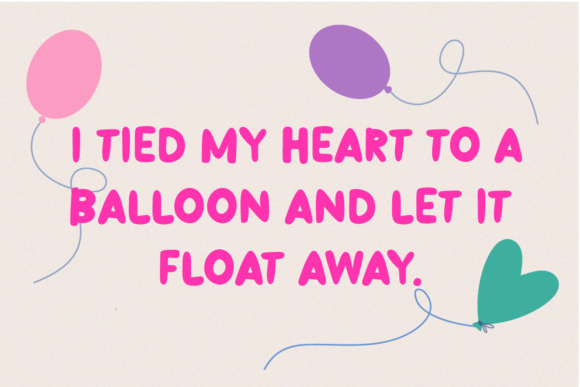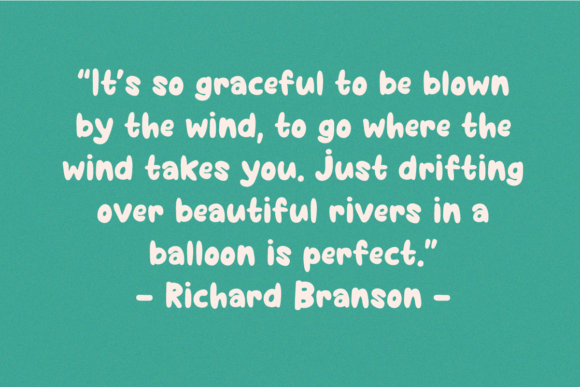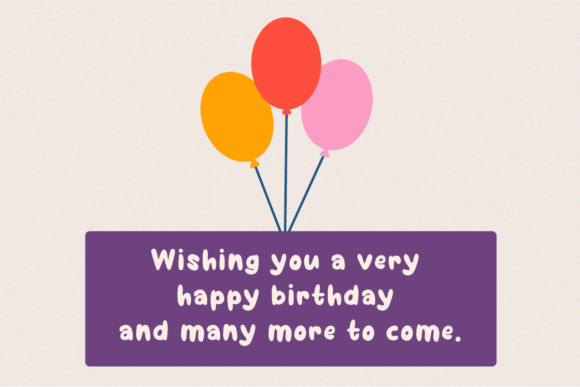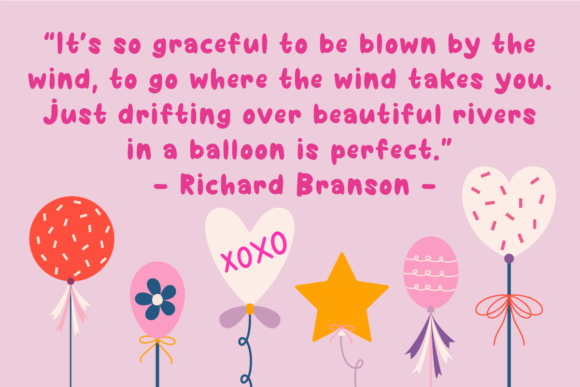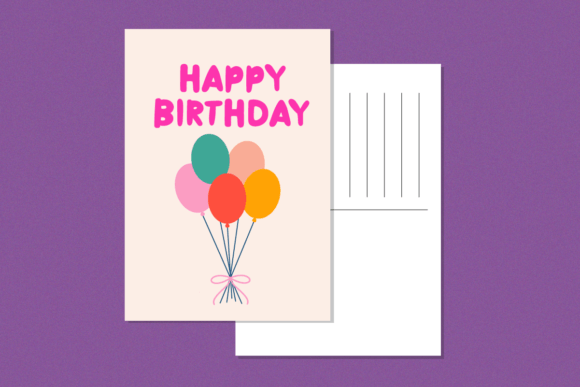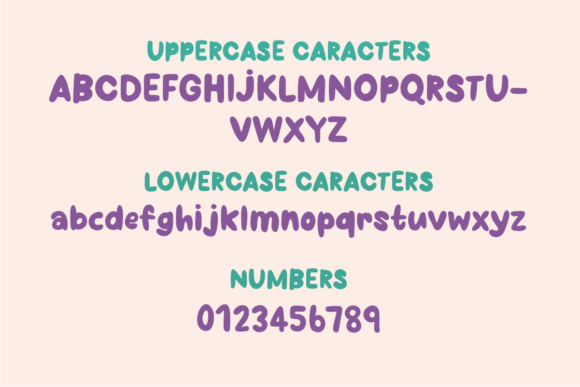
Let Your Creativity Take Flight with the Perfect Font
Remember the excitement of blowing up balloons for your birthday party as a child? The thrill of watching them soar into the air, a colorful spectacle that brought joy to everyone around you. As a designer, you’re always looking for ways to capture that same sense of wonder and playfulness in your work. That’s where the Balloon Farm Font comes in – a simple yet effective sans display font with a bubble style that’s sure to bring a smile to your clients’ faces.
Whether you’re creating a poster, logo, or greeting card, the Balloon Farm Font is the perfect choice for adding a touch of whimsy and fun to your design. Its versatility makes it valuable for designers of all levels, from beginners to seasoned professionals. With its clean lines and playful aesthetic, this font is sure to elevate your designs and leave a lasting impression on your audience.
Balloon Farm Font Key Features
- Unique Characteristics: Custom-designed balloons with varying colors and patterns, creating a playful and whimsical atmosphere
- Font Weight: Multiple font weights, including light, regular, bold, and extra bold, for versatility in design
- Language Support: Supports multiple languages, including Latin, Cyrillic, and Asian languages, making it a great choice for global projects
Designer Review: Balloon Farm Font
Overall, I think the Balloon Farm Font is a fun and quirky addition to any design project. ✨ It’s perfect for those who want to add a playful touch to their work without being too overwhelming.
- Unique and whimsical design: The Balloon Farm Font is full of character and has a lot of personality.
- Wide range of characters: The font includes a wide range of characters, including uppercase and lowercase letters, numbers, and punctuation marks.
- Good for titles and headings: The font is particularly well-suited for use as titles and headings, where its playful design can really shine.
However, there are also some limitations:
- Not ideal for body text: While the font is great for titles and headings, it’s not the best choice for body text, as it can be difficult to read in larger blocks of text.
- May not be suitable for all audiences: The font’s playful design may not be suitable for all audiences, particularly those who prefer a more formal or serious tone.
- May require adjustments: Depending on the project, you may need to adjust the font size, line height, or spacing to get the best results.
Overall, I think the Balloon Farm Font is a fun and versatile addition to any design project, but it’s not without its limitations. With some careful consideration and adjustments, it can be a great choice for the right project.
The Balloon Farm Font is ideal for designs that require a playful, whimsical touch. Common use cases include:
- Children’s party invitations or decorations.
- Food or dessert labels.
- Party or event branding.
- Whimsical greeting cards or gift tags.
Yes, the Balloon Farm Font includes a comprehensive character set, including Latin, Cyrillic, and Greek alphabets, as well as a range of punctuation marks, symbols, and special characters. Additionally, it includes ligatures and swashes to enhance typographic quality.